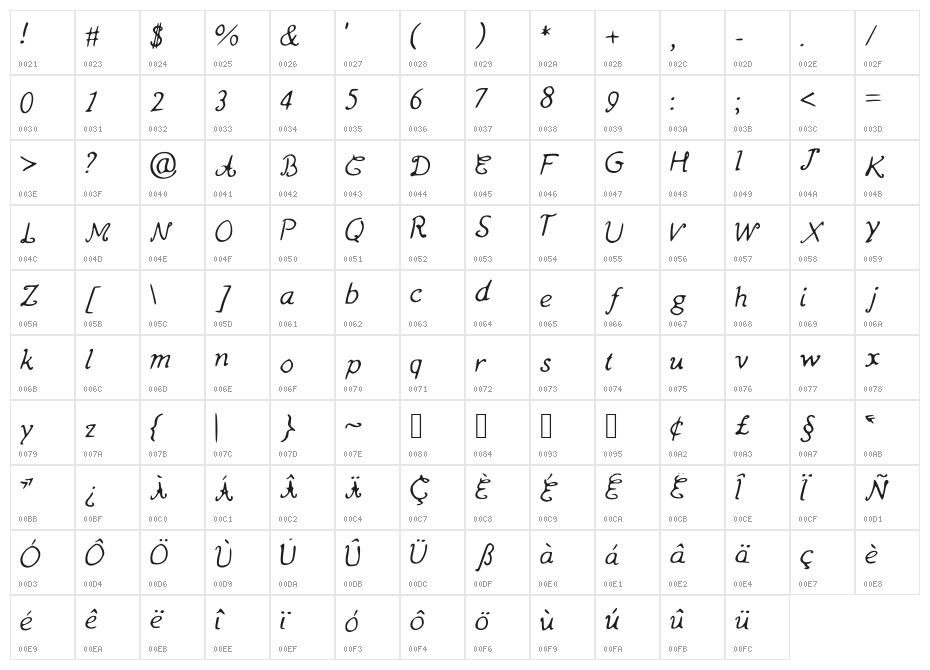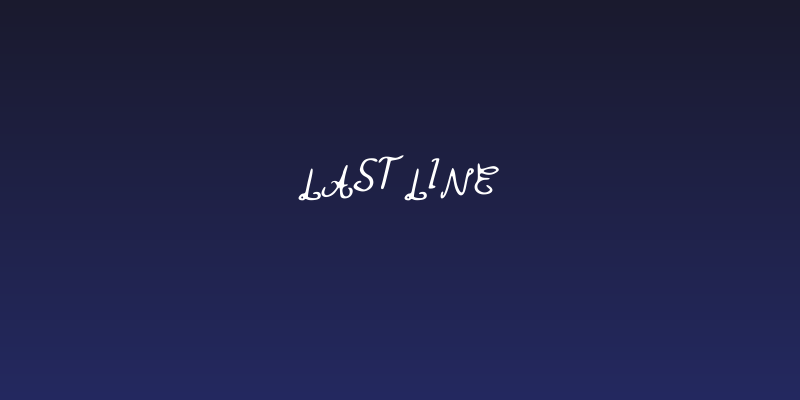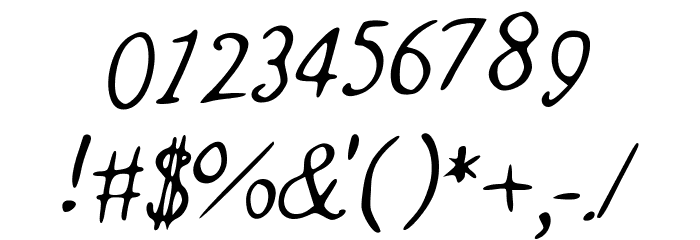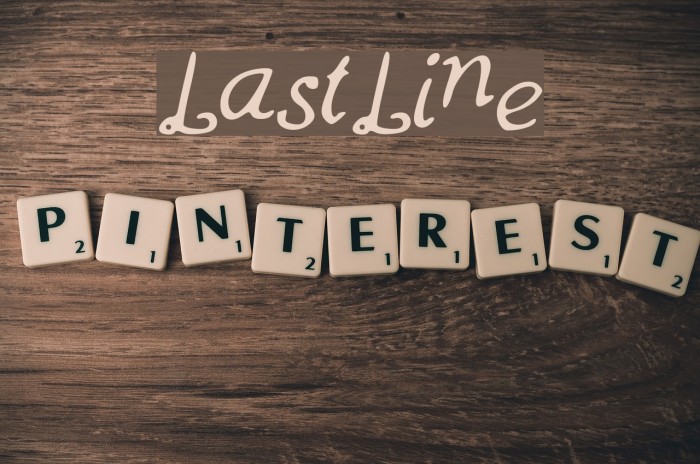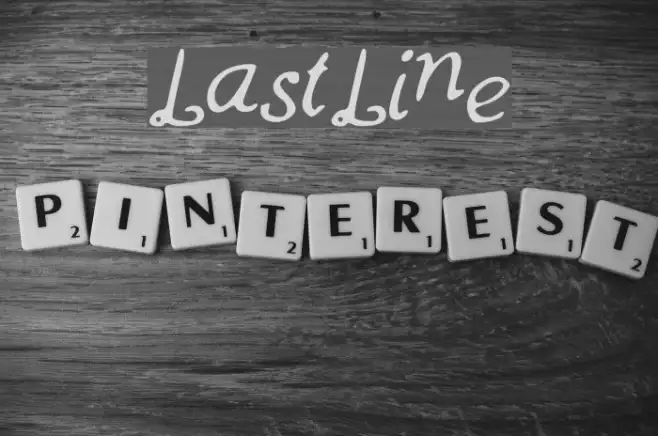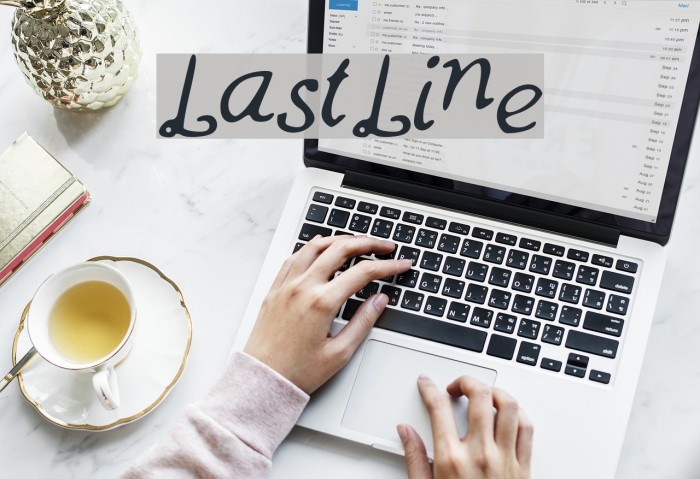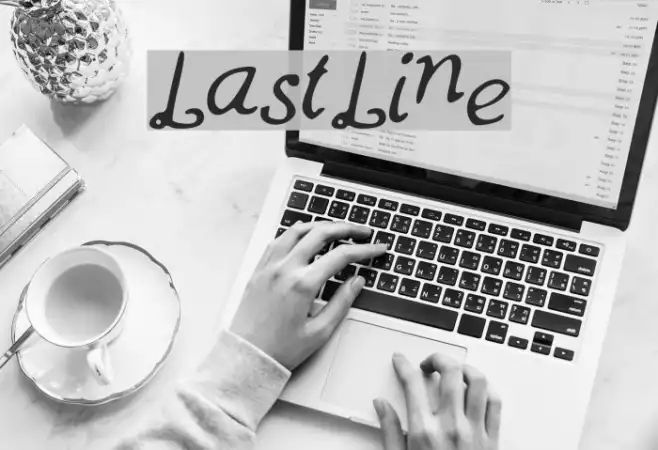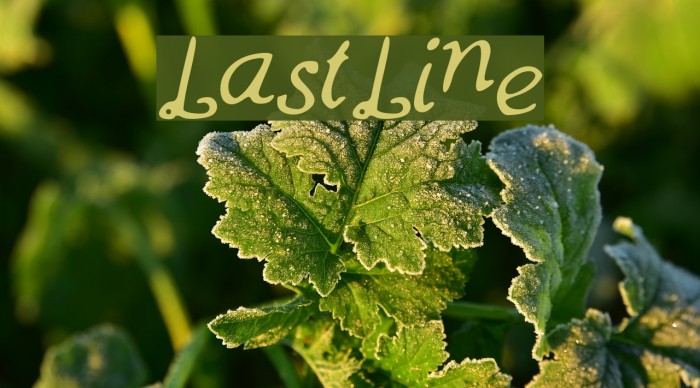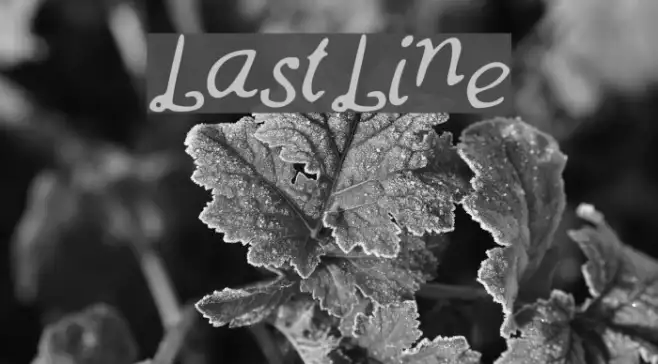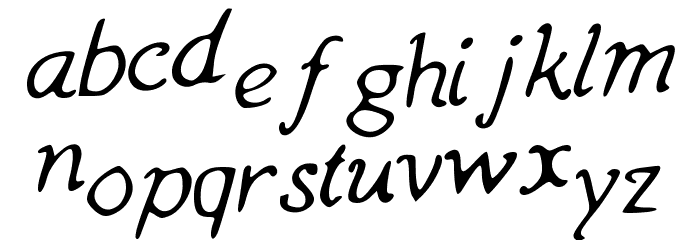
LastLine Font
LastLine Description
This font features a flowing, cursive style that mimics elegant handwriting. The characters are connected, with smooth curves and a slight slant, giving it a dynamic and lively appearance. The uppercase letters are distinct and slightly larger than the lowercase, which are more rounded and compact. Numbers and special characters maintain the same fluidity, integrating seamlessly with the alphabet. The overall design is sophisticated, making it suitable for formal invitations, elegant branding, or any project that requires a touch of class and personality.
| Proposed Projects | Ideal for wedding invitations, elegant branding, personal stationery, and decorative quotes. |